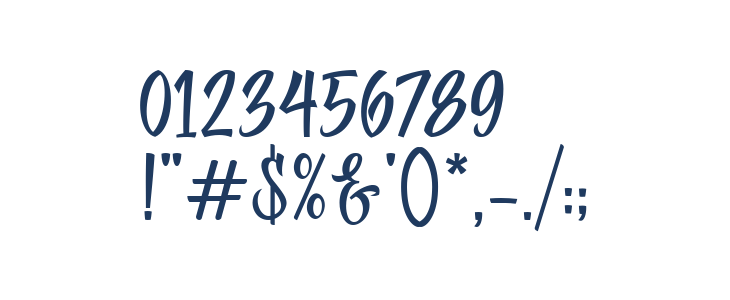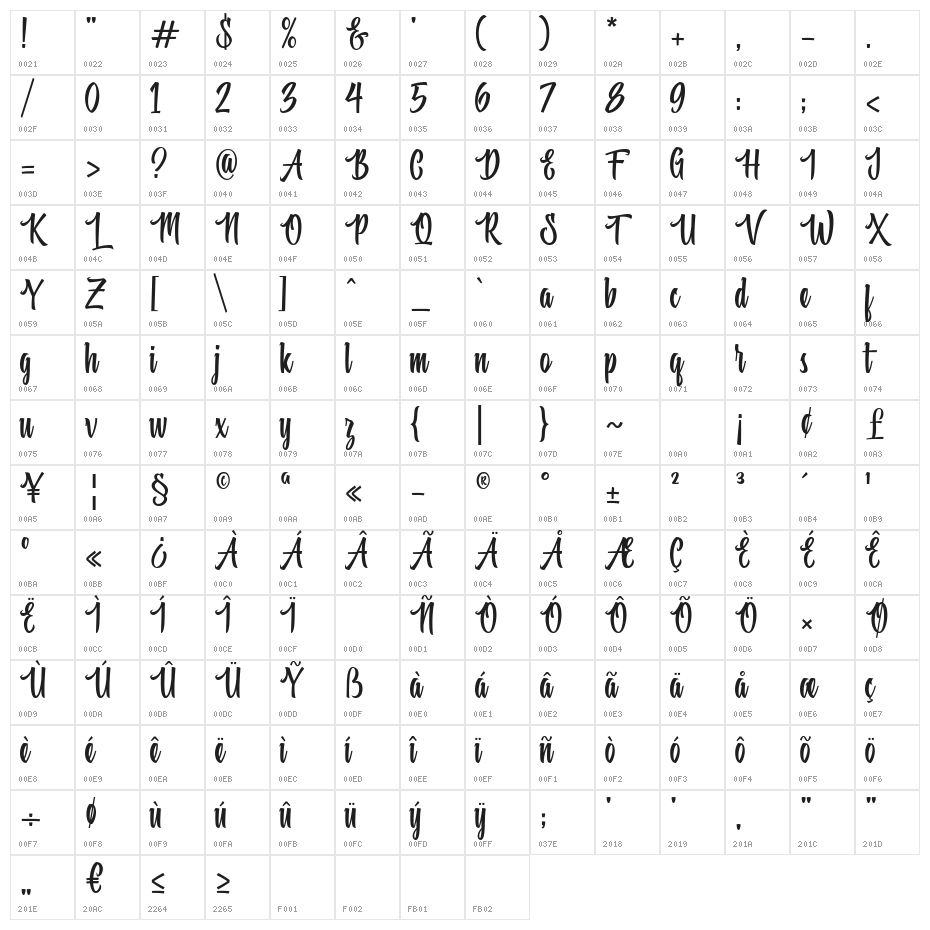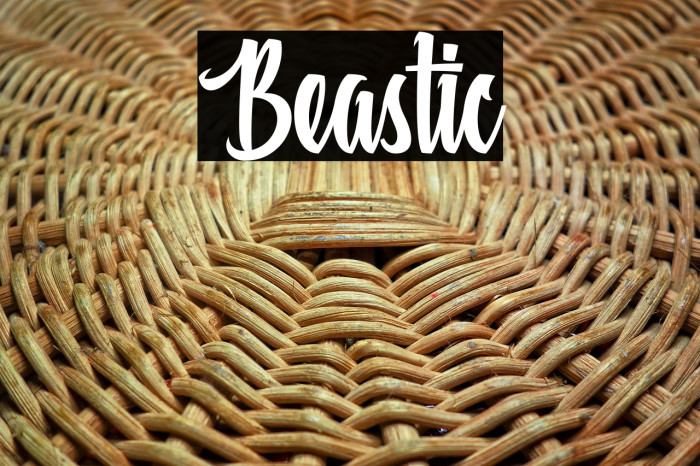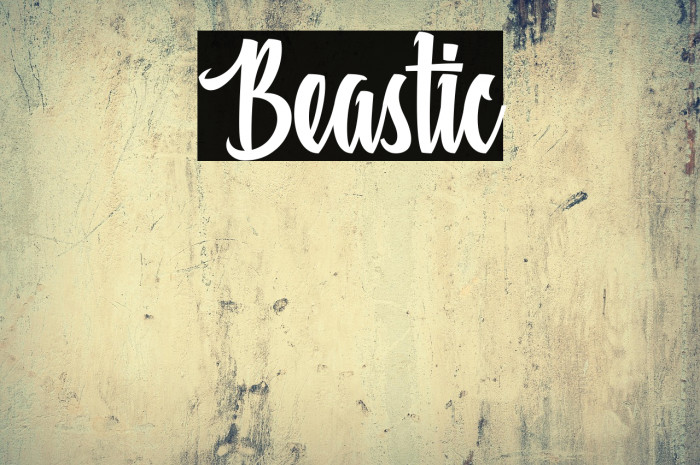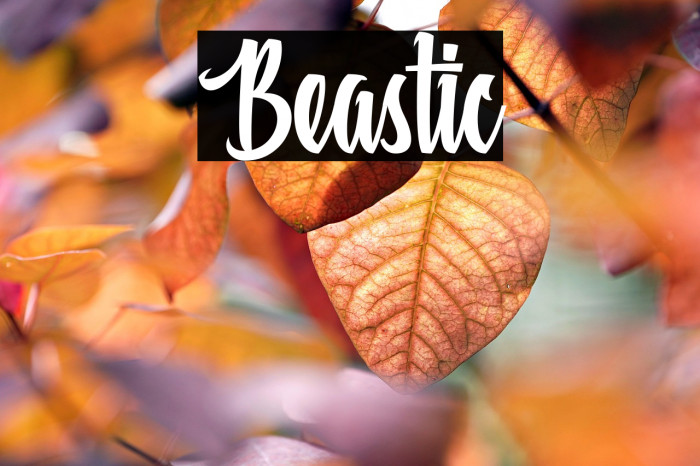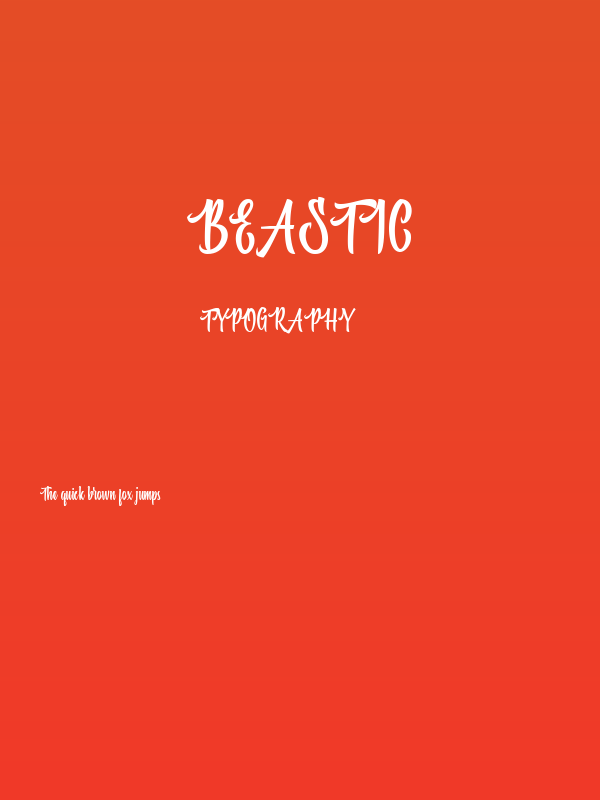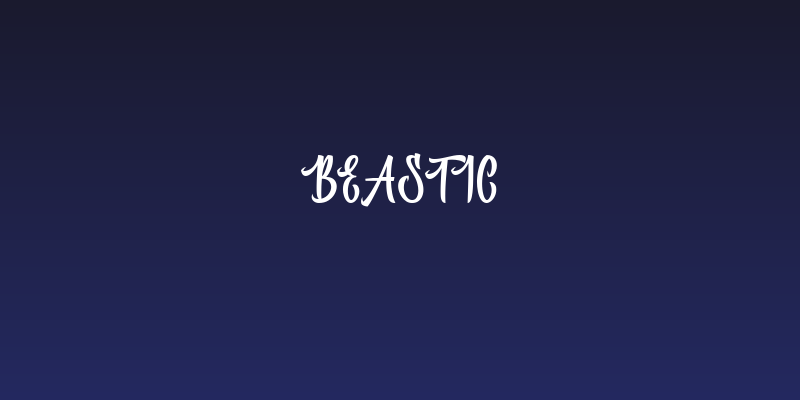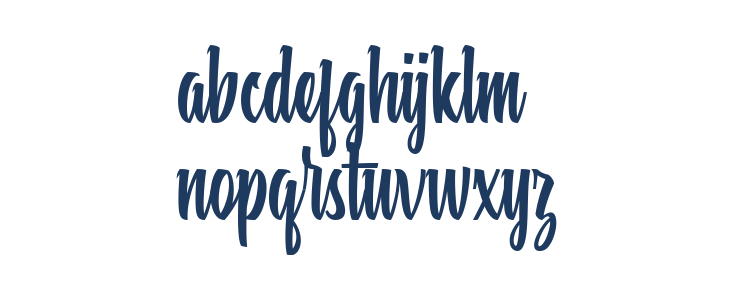
Beastic Font
Beastic Description
This font features a bold and expressive script style, characterized by its flowing and dynamic letterforms. The uppercase letters are tall and slightly condensed, with a playful yet elegant flair that makes them stand out. The lowercase letters maintain a consistent rhythm, with smooth curves and a slight slant that adds to the overall fluidity of the design. The numerals are bold and clear, matching the style of the letters, while the special characters are creatively integrated, maintaining the font's cohesive appearance. This font's unique style is perfect for projects that require a touch of personality and creativity.
| Width | Condensed |
| Use Case | Logos, Headlines, Invitations |
| Proposed Projects | Ideal for branding, invitations, posters, and social media graphics. |